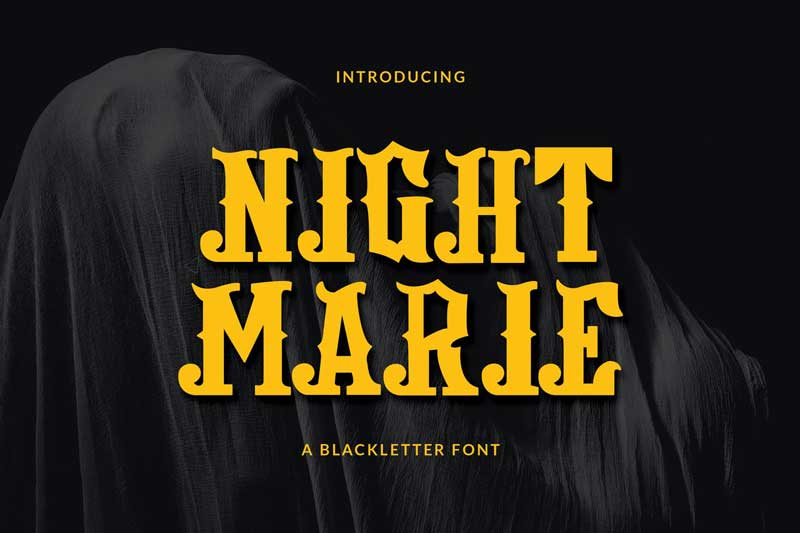
NIGHTMARIE FONT
NIGHTMARIE
NIGHTMARIE is a blackletter font. Includes uppercase, lowercase, punctuations and ligatures characters. This font is suitable for your set of apparel, T-shirt, product packaging, brand, logo type, labels, posters, wall art, and much more.